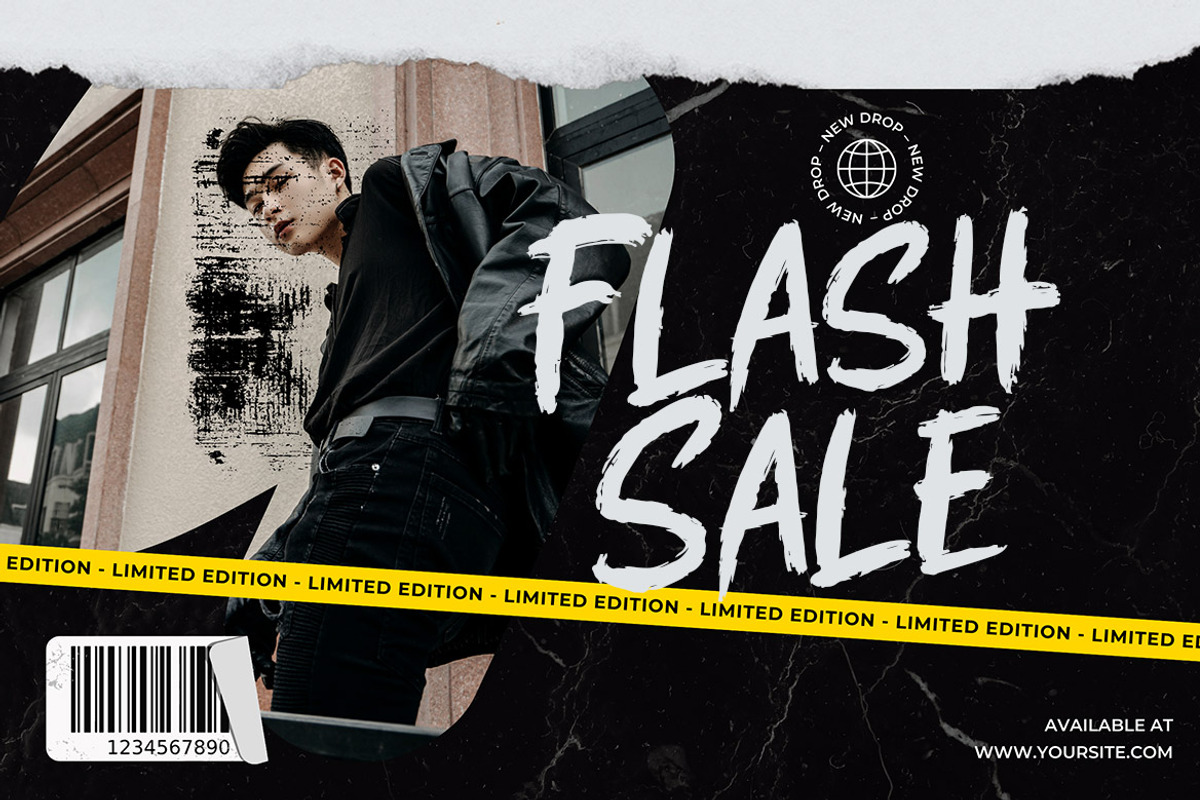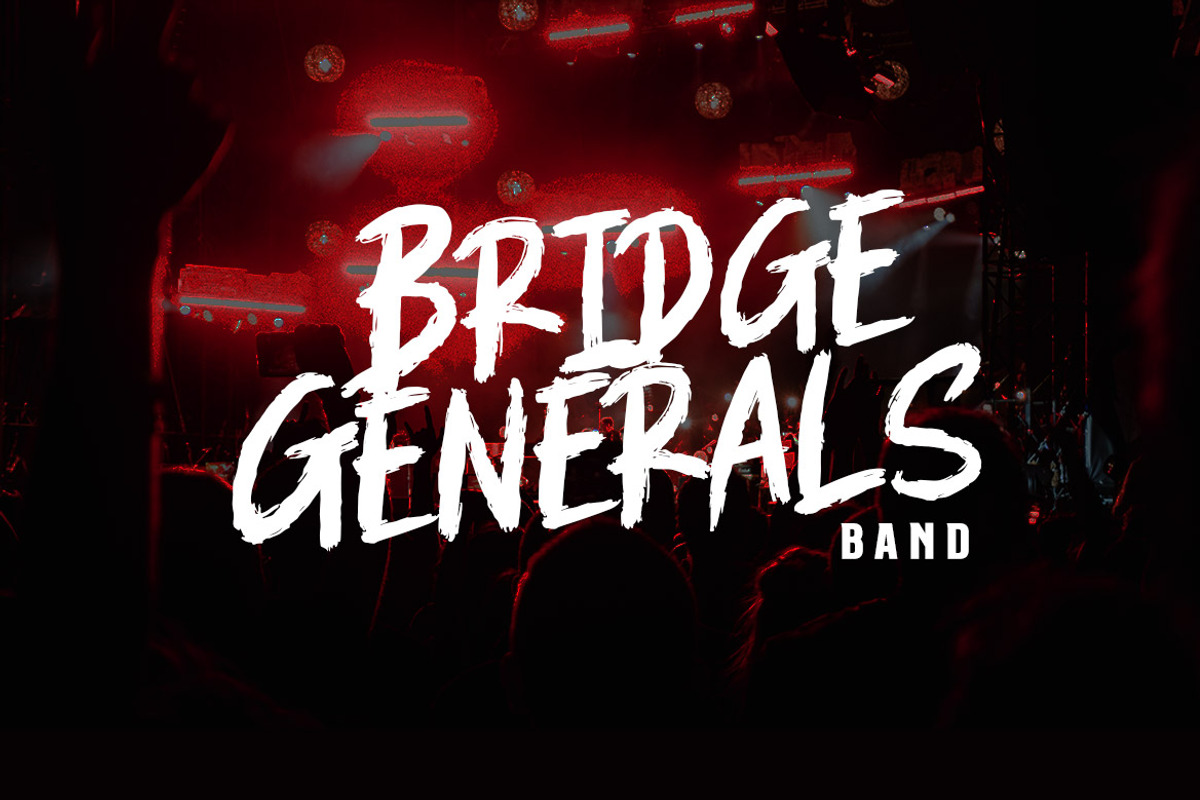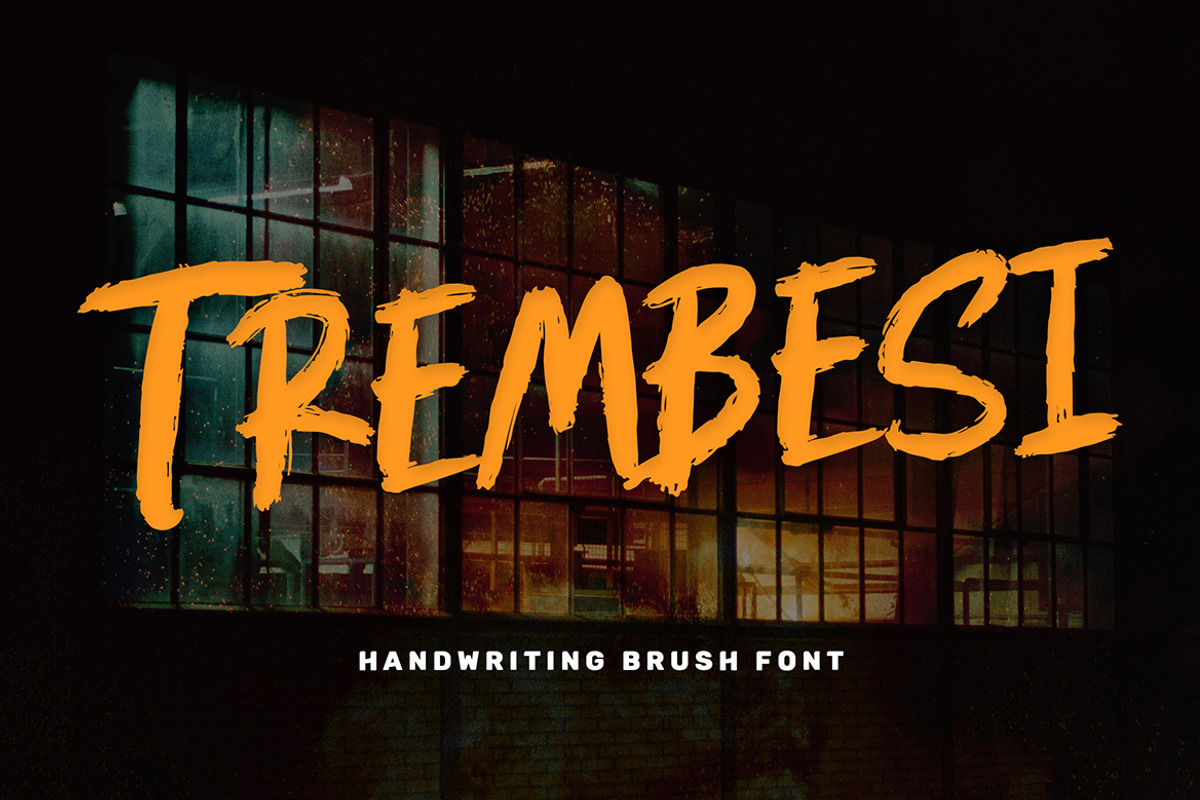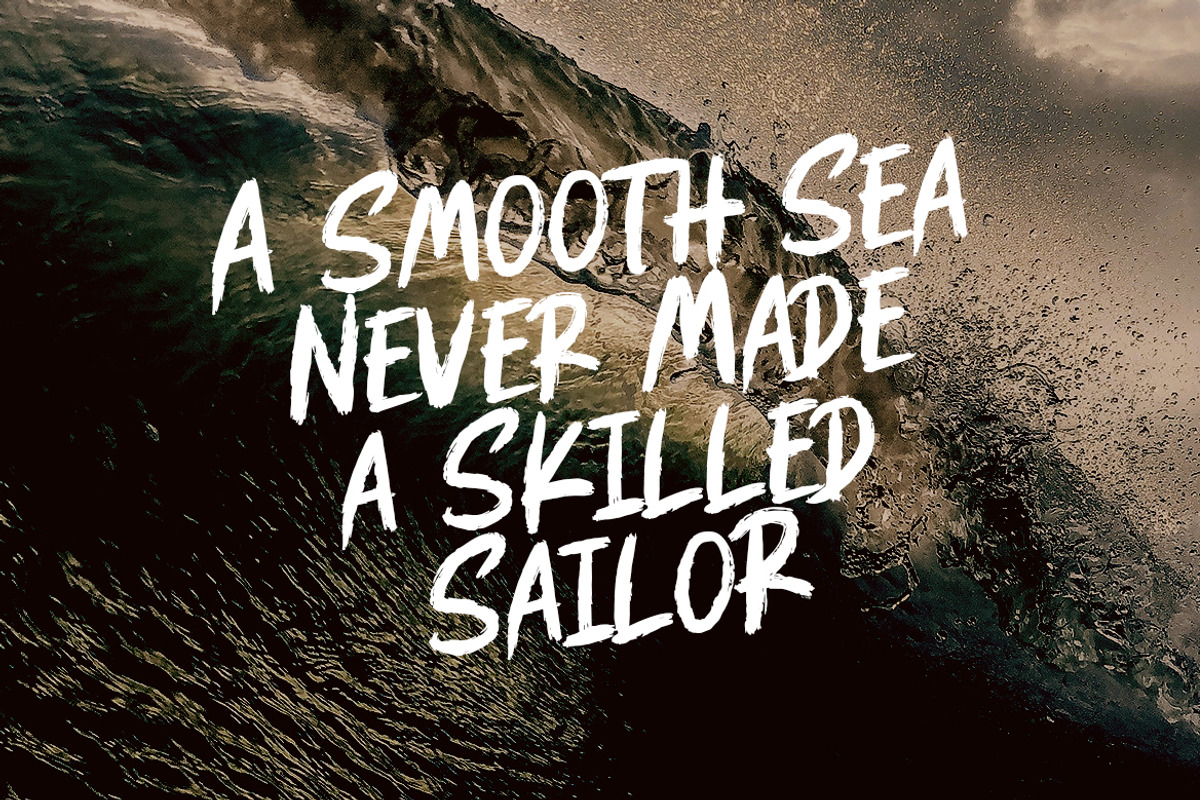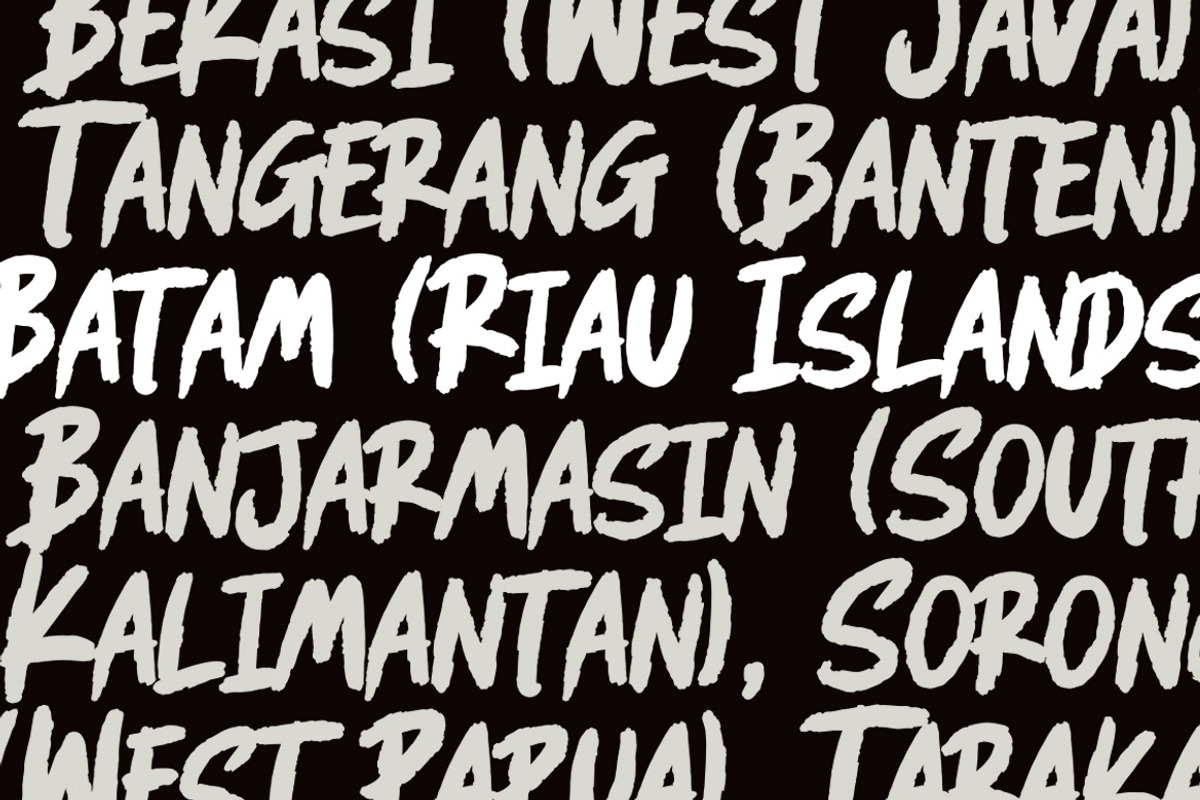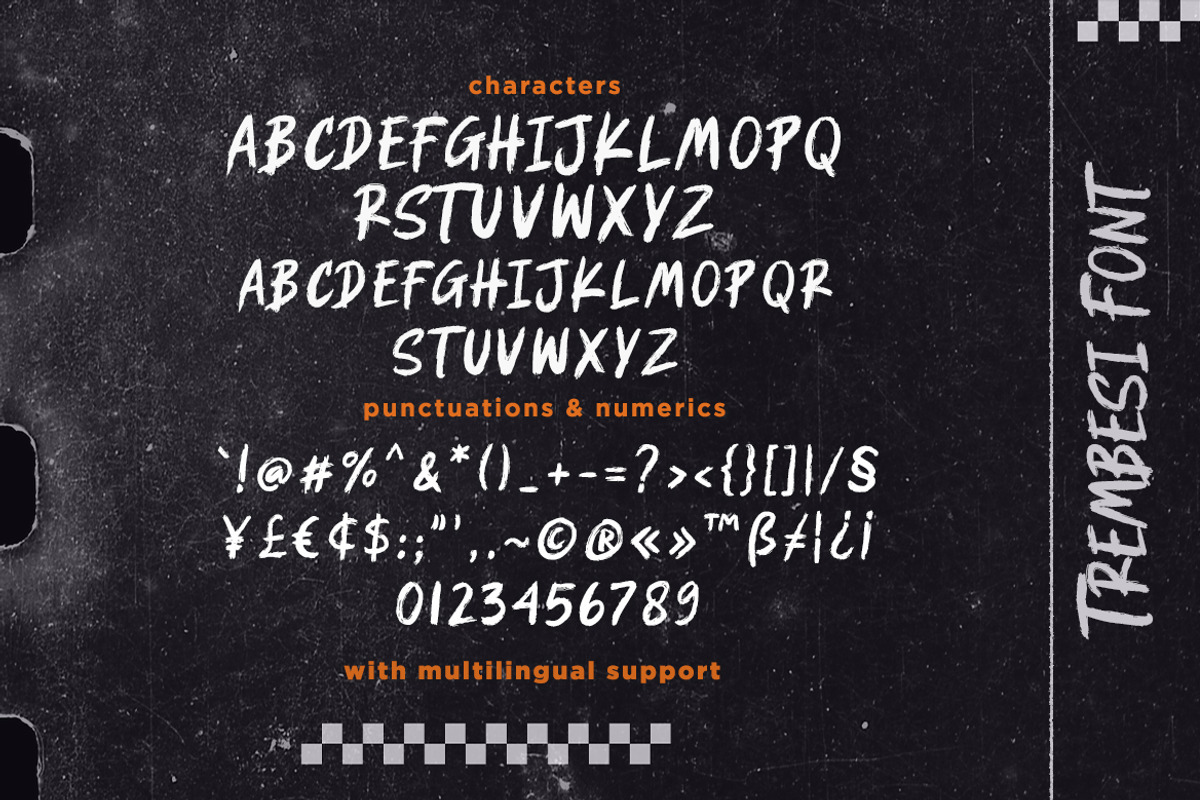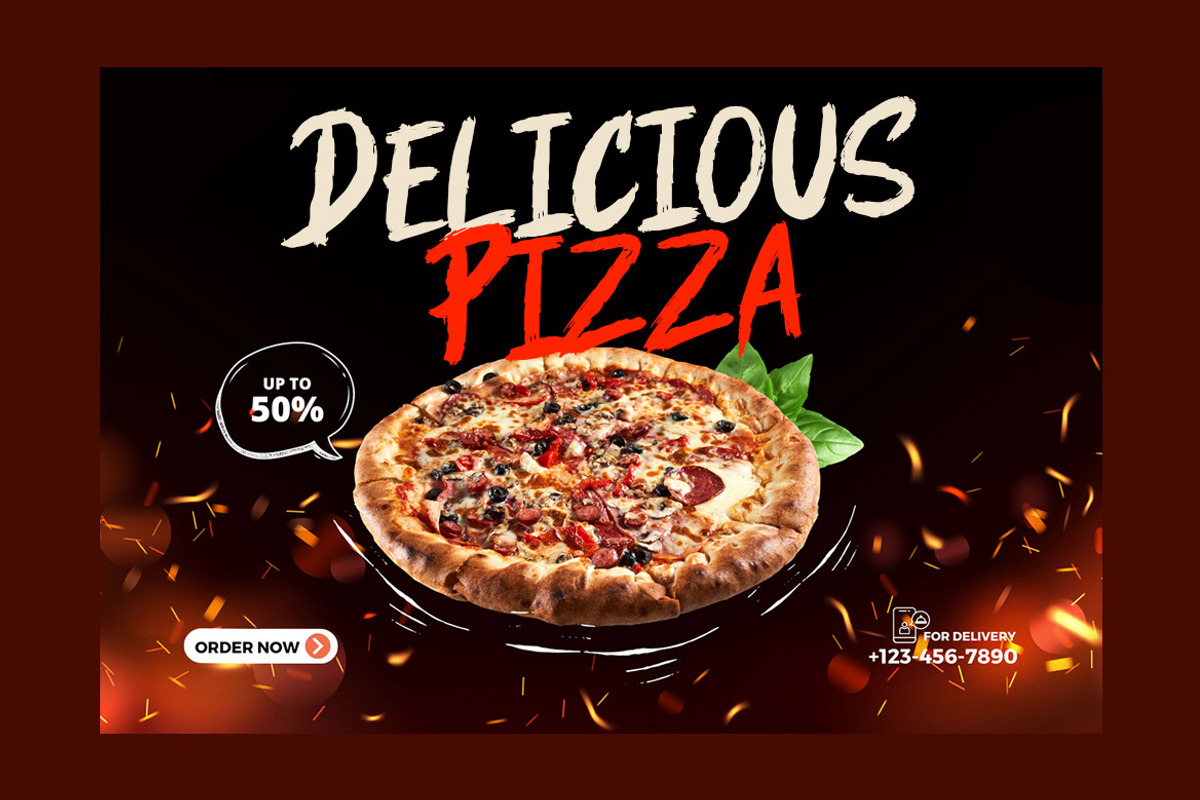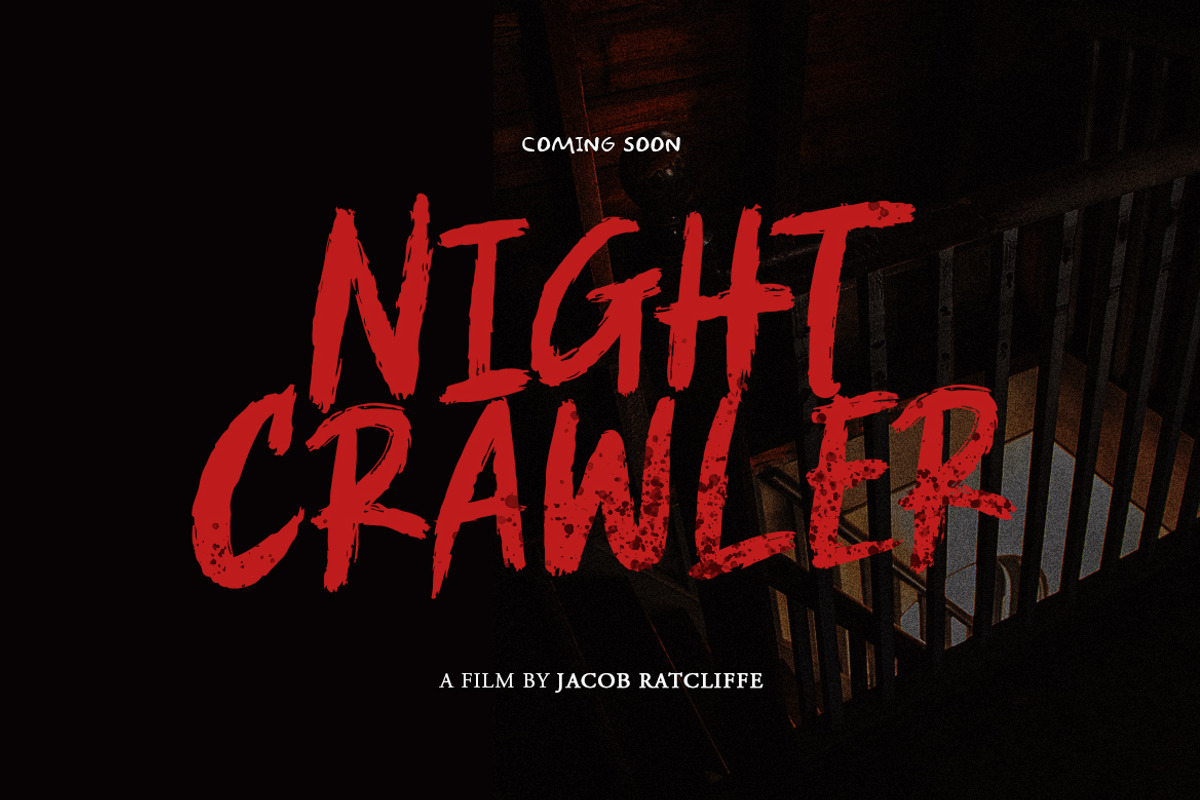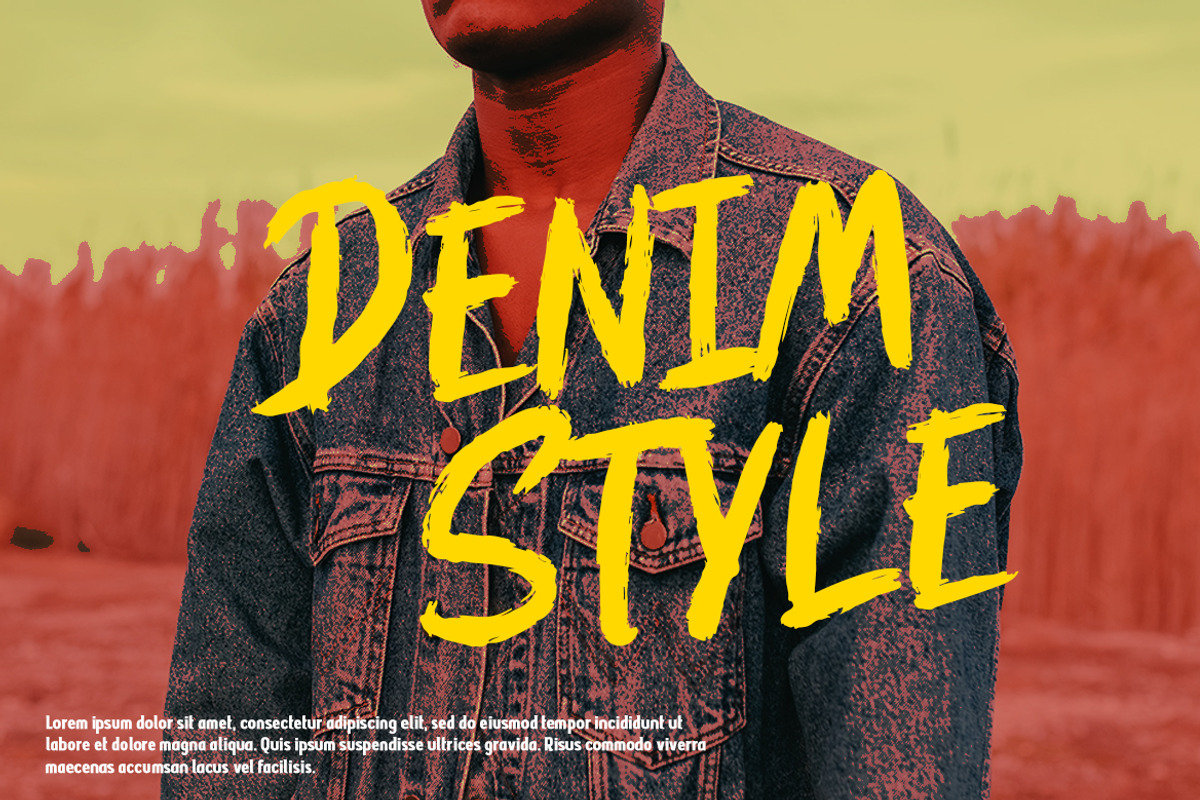
Trembesi - Handwriting Brush Font
Introducing Trembesi, handwriting realistic brush font with all caps style. You can combine a unique uppercase and lowercase, so it looks like natural handwriting.
And this font is perfect for branding, poster, band, apparel, photography, title, social media post, ad banner, book cover, product packaging, handwritten quotes, and advertising.
- multilingual language